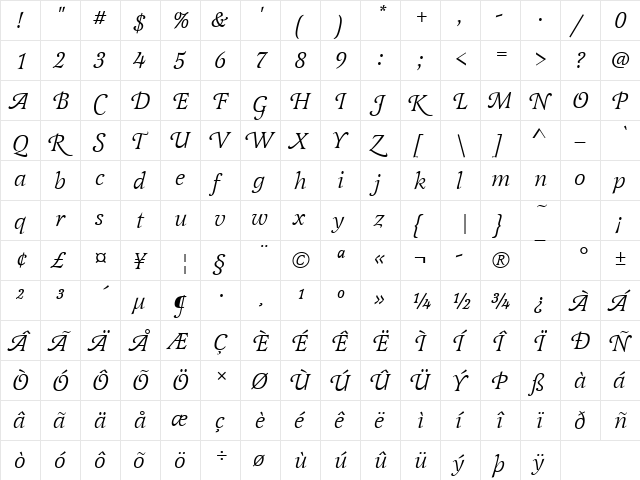
LatienneSwaT Italic
Design Context for LatienneSwaT Typeface
LatienneSwaT is a composed and adaptable typeface that performs quietly and consistently across a wide range of design contexts. The dynamic lean of this cut emphasises speed and emphasis in any layout.
Pro Tip: Use LatienneSwaT for emphasis, pull quotes, and subheadings where its slanted energy can add rhythm to the layout.